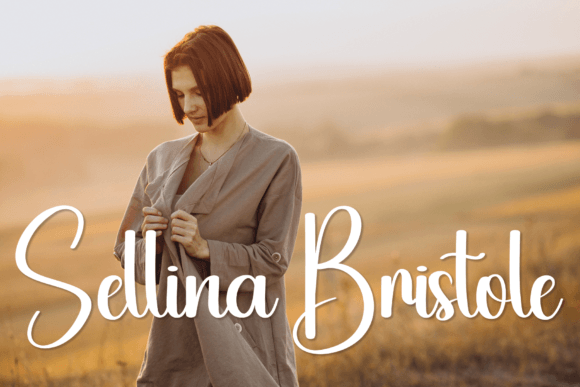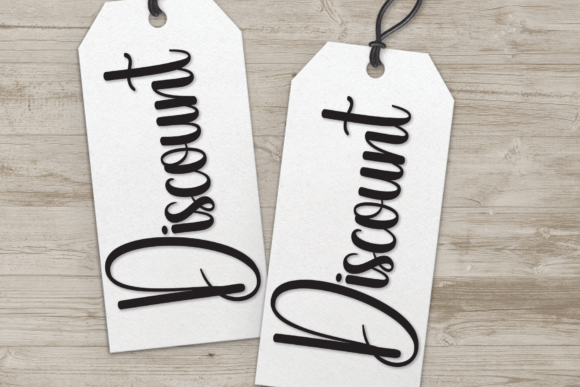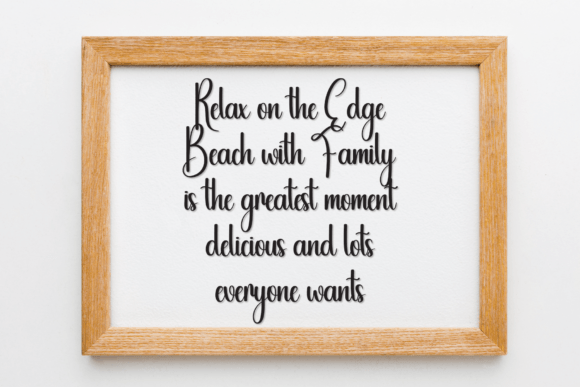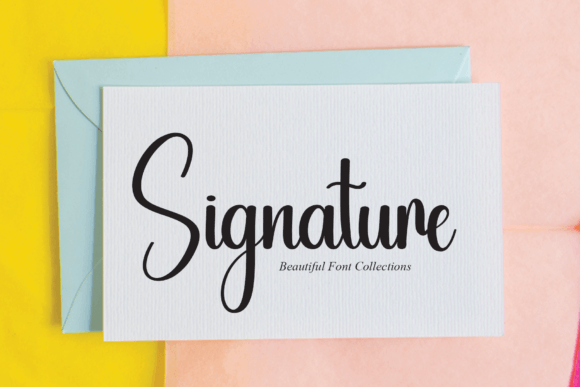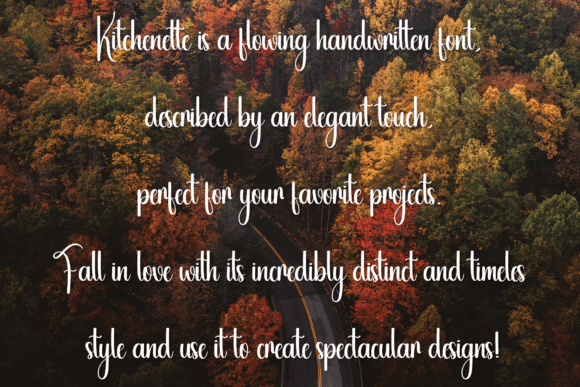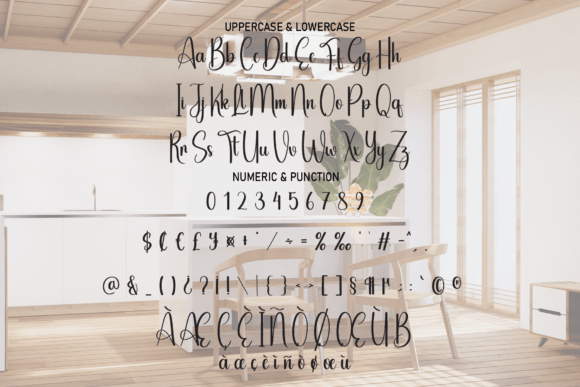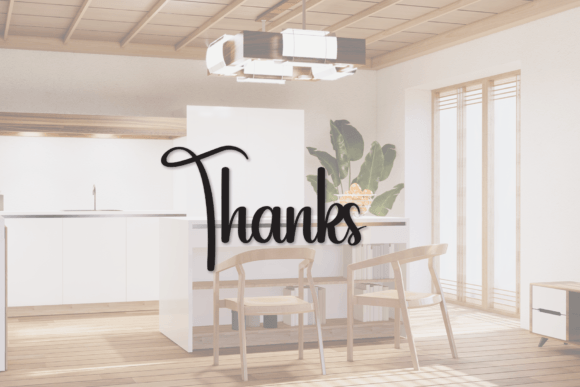
Kitchenette Font
A Flowing and Elegant Handwritten Script
Kitchenette is a graceful handwritten font created to bring a refined, personal touch to any project. With smooth curves and balanced strokes, it feels timeless and modern at the same time. Whether you’re designing branding materials, event stationery, or social media content, Kitchenette makes every detail look polished and unique.
Its clean, flowing style makes it perfect for both formal and casual designs, giving you endless creative flexibility.
Kitchenette is a font you’ll find yourself using again and again. It’s ideal for wedding invitations, save-the-dates, and thank you cards. The elegant script style sets a warm, romantic mood that makes every occasion feel special.
For branding, Kitchenette is an excellent choice for logos, business cards, and packaging. Its handwritten look adds a premium, approachable feel to your brand identity, helping you stand out in a crowded market.
Use this font for greeting cards, quotes, or personal gifts. Its authentic strokes bring warmth and charm to any message.
On social media, Kitchenette keeps your posts looking cohesive and stylish. Whether you’re announcing a product launch or sharing inspiration, this font makes your visuals more engaging.
Even with its flowing design, Kitchenette remains clear and legible at any size. Balanced letter spacing and smooth connections help your text stay neat and easy to read, from big headlines to small captions.
For a clean, modern look, pair Kitchenette with a minimalist sans-serif font. Use Kitchenette for titles and featured text, and the sans-serif for supporting content. This combination creates a layout that feels elegant and well-organized.
To showcase Kitchenette’s graceful style, use light colors and neutral backgrounds. Soft shades like ivory, blush pink, or muted gray help the font’s details shine without overpowering your design.
When creating invitations or event materials, consider adding subtle borders or delicate illustrations that enhance the handwritten feel.
On social media, keep your designs simple and embrace white space to ensure your text remains the focal point.
Think about the mood you want to convey. Kitchenette is perfect for projects that should feel timeless, romantic, and sophisticated.
Kitchenette isn’t just another handwritten script—it’s a creative tool that elevates any project with style. From branding to special occasions, this font adapts seamlessly to your ideas and brings a refined touch to everything you create.
Adding Kitchenette to your font library ensures you always have a versatile, beautiful option ready for any design. Whether you’re working on logos, stationery, or social media graphics, this font adds elegance and personality to your work.